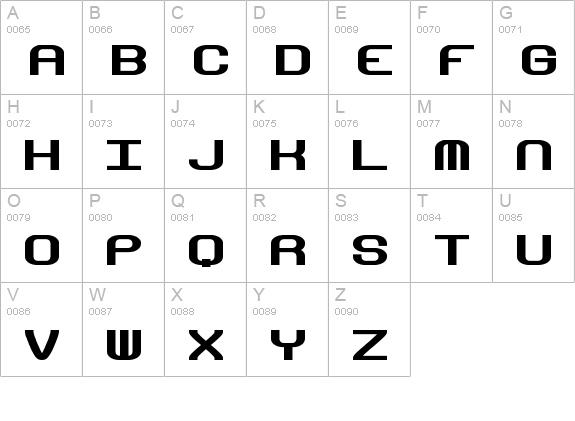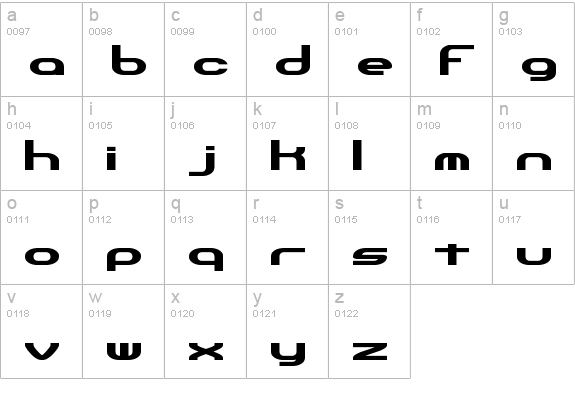
Hyperion Sunset -BRK- Font Details
Hyperion Sunset -BRK- font is a stunning display typeface that exudes elegance and sophistication. With its intricate details and modern design, this font is perfect for adding a touch of luxury to any project. The unique letterforms and stylish curves of Hyperion Sunset -BRK- make it a versatile choice for logos, branding, headlines, and more. The best part? Hyperion Sunset -BRK- font is available for free download at FontsMarket.com. This means you can easily access this beautiful font and use it in your designs without any cost. Whether you're a designer looking to elevate your projects or a business owner in need of a standout font, Hyperion Sunset -BRK- is the perfect choice. Download it today and add a touch of sophistication to your work.